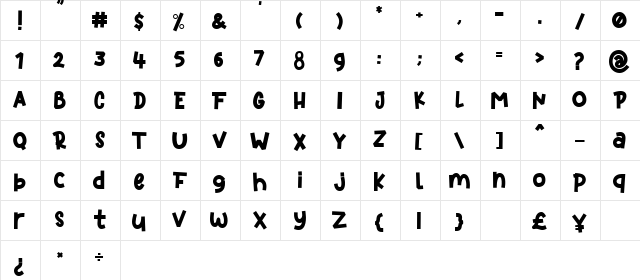
Kidspace Regular
Design Context for Kidspace Typeface
Kidspace has an approachable, lighthearted character — its loose, expressive forms are well-suited to children's content, casual branding, and fun-first design.
Font Pairing: Pairs well with a rounded or humanist sans for body copy, maintaining the friendly tone without relying on Kidspace to carry extended reading.
Pro Tip: Use Kidspace at larger display sizes where its expressive character can land. Pair with a clean, simple sans for body copy to maintain readability.